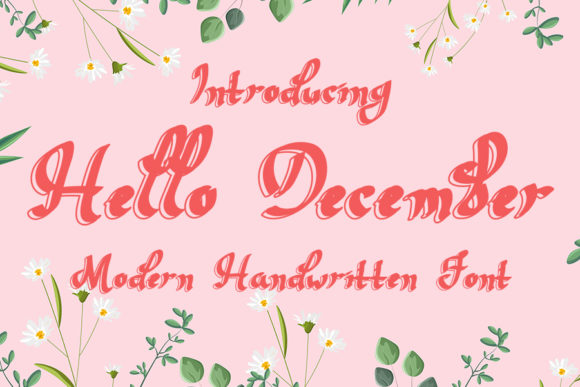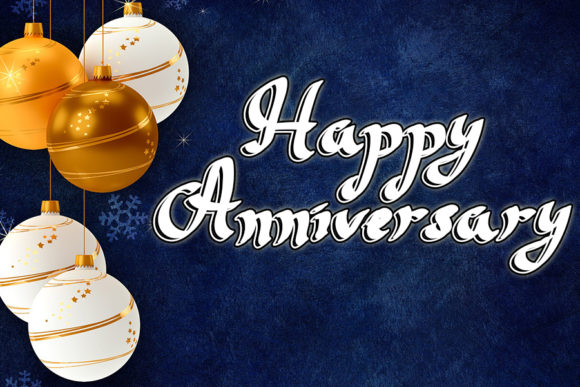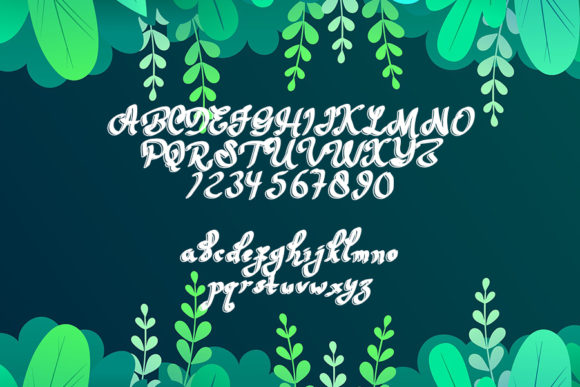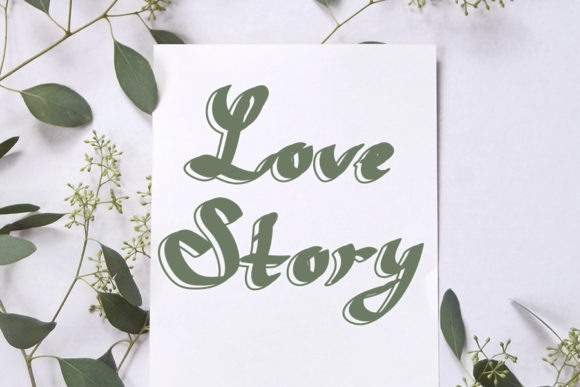
Hello December Font
Introducing Hello December: The Delicate and Unique Handwritten Font
Step into a world of delicate charm and creativity with Hello December, a handwritten font that exudes a sense of uniqueness and whimsy. Ideal for your story creations and book titles, Hello December brings a touch of originality to every design you wish to develop. Embrace the enchanting and whimsical vibe of Hello December as you infuse your projects with a sense of delightful allure and creativity.
Hello December’s delicate and unique appeal brings a sense of grace and charm to your designs. Its handwritten letterforms flow with a seamless beauty, making your text exude a whimsical and captivating energy.
As a font that stands out with its one-of-a-kind style, Hello December becomes the go-to choice for projects that seek a touch of creativity and originality. Its delicate and whimsical charm ensures that your work resonates with an enchanting and delightful look.
Embrace the allure of Hello December as you embark on your creative journey. Let it be the font that elevates your designs, adding a sense of charm and creativity in every project.
As you explore the possibilities of Hello December, you’ll find it to be a font that enhances your designs with ease. Its unique and delicate handwritten beauty transforms your work, ensuring that your creations leave a lasting impression.
So, let Hello December be the font that adds an original vibe to your designs. Embrace its whimsical touch, and watch as your story creations, book titles, and other projects come to life with a sense of delightful allure. With Hello December as your go-to font, your designs will resonate with enchantment and creativity, captivating your audience and leaving a lasting impression. Embrace the uniqueness of Hello December and create designs that are truly captivating and unforgettable!